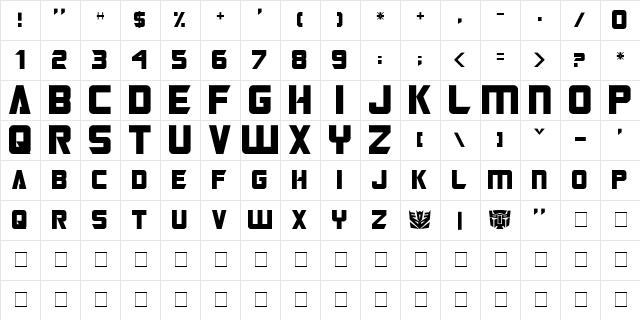
Transformers Regular Free Font
Transformers Regular
Transformers Family
Transformers Regular
Design Context for Transformers
Transformers is a composed and adaptable typeface that performs quietly and consistently across a wide range of design contexts.
Pro Tip: Use Transformers in both headline and body roles to test its range before committing to a single application.